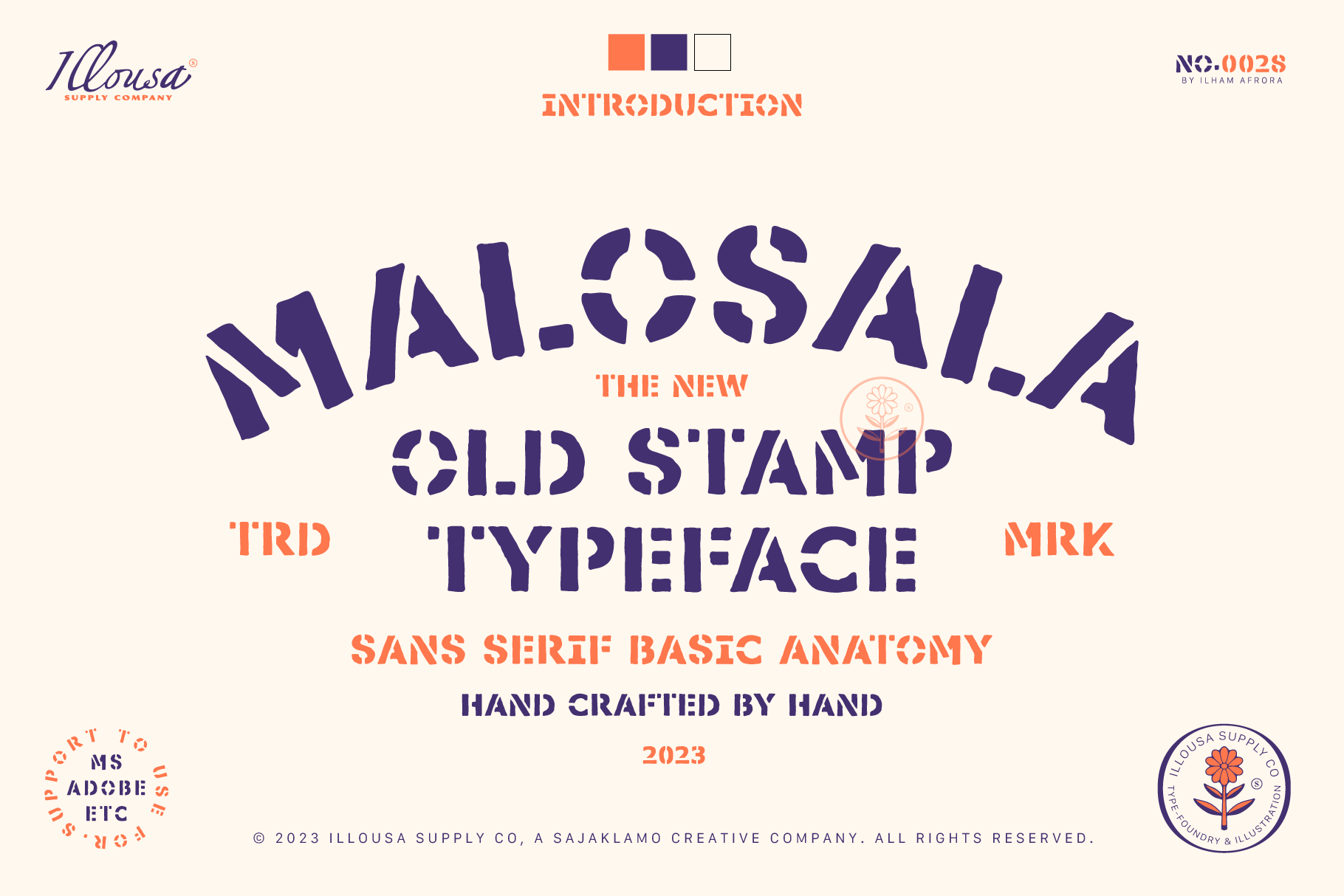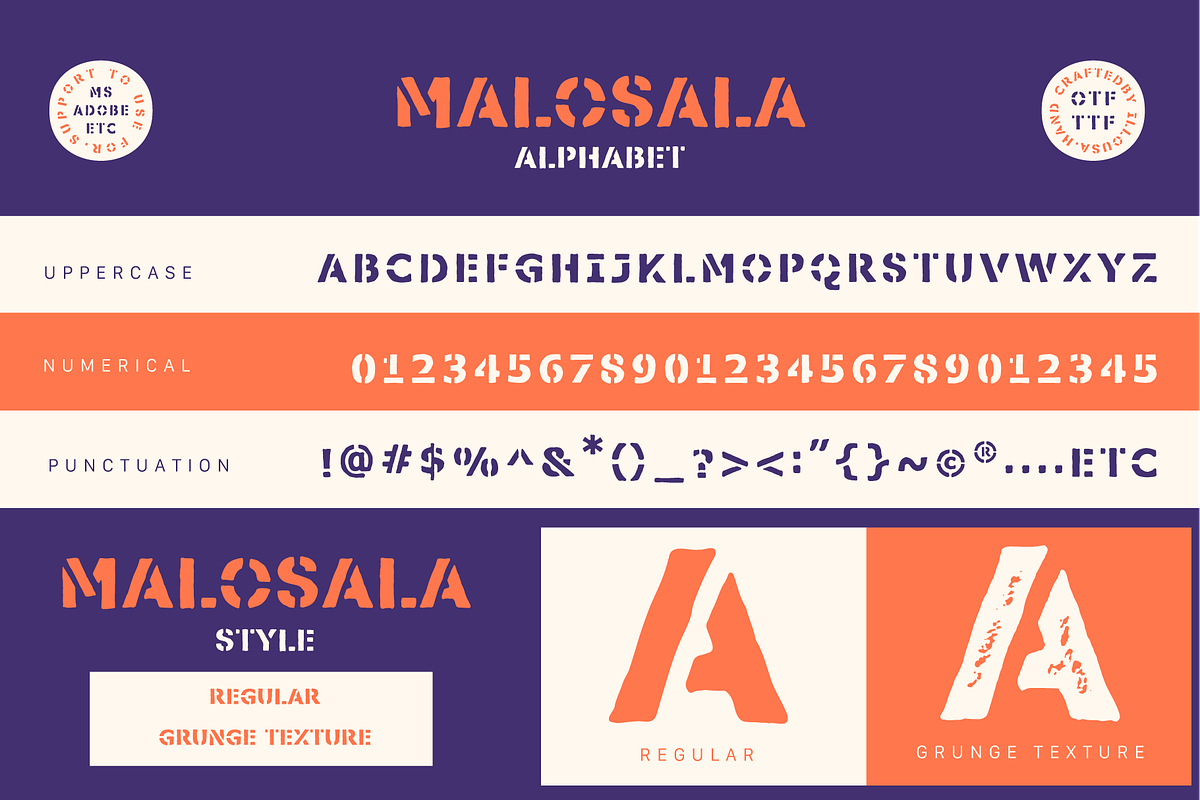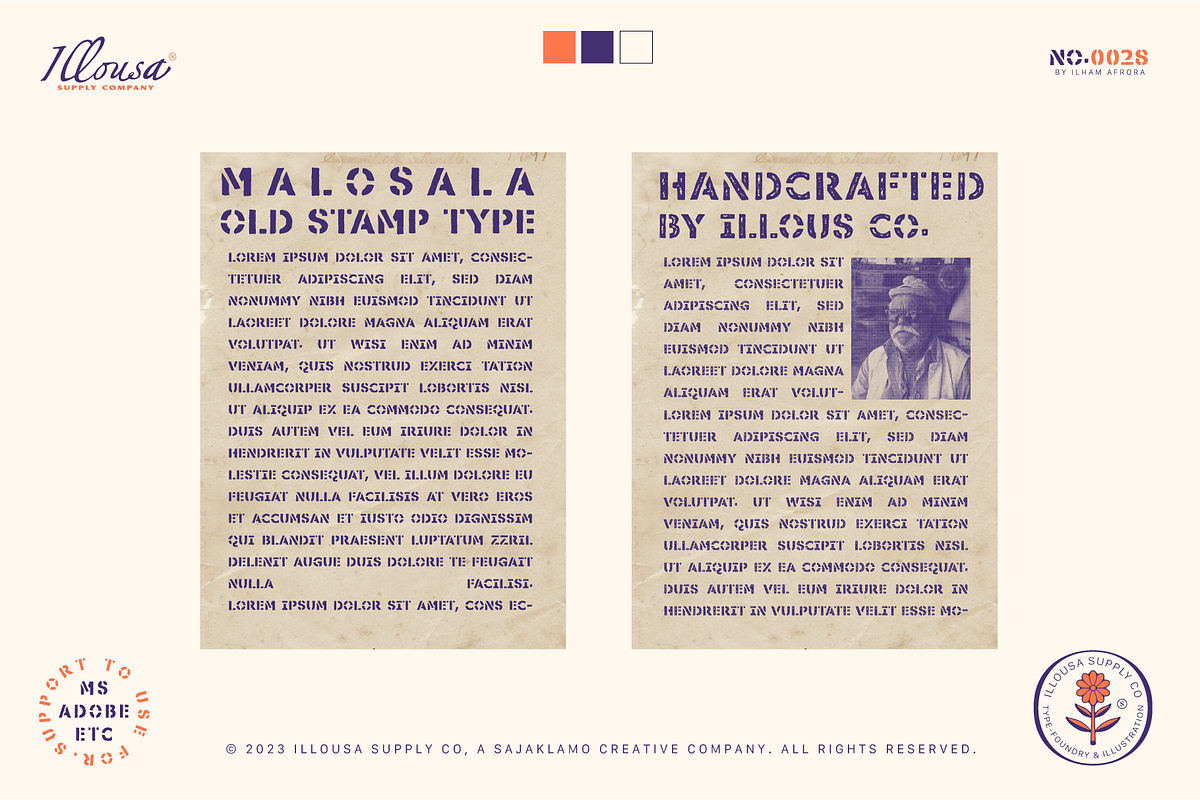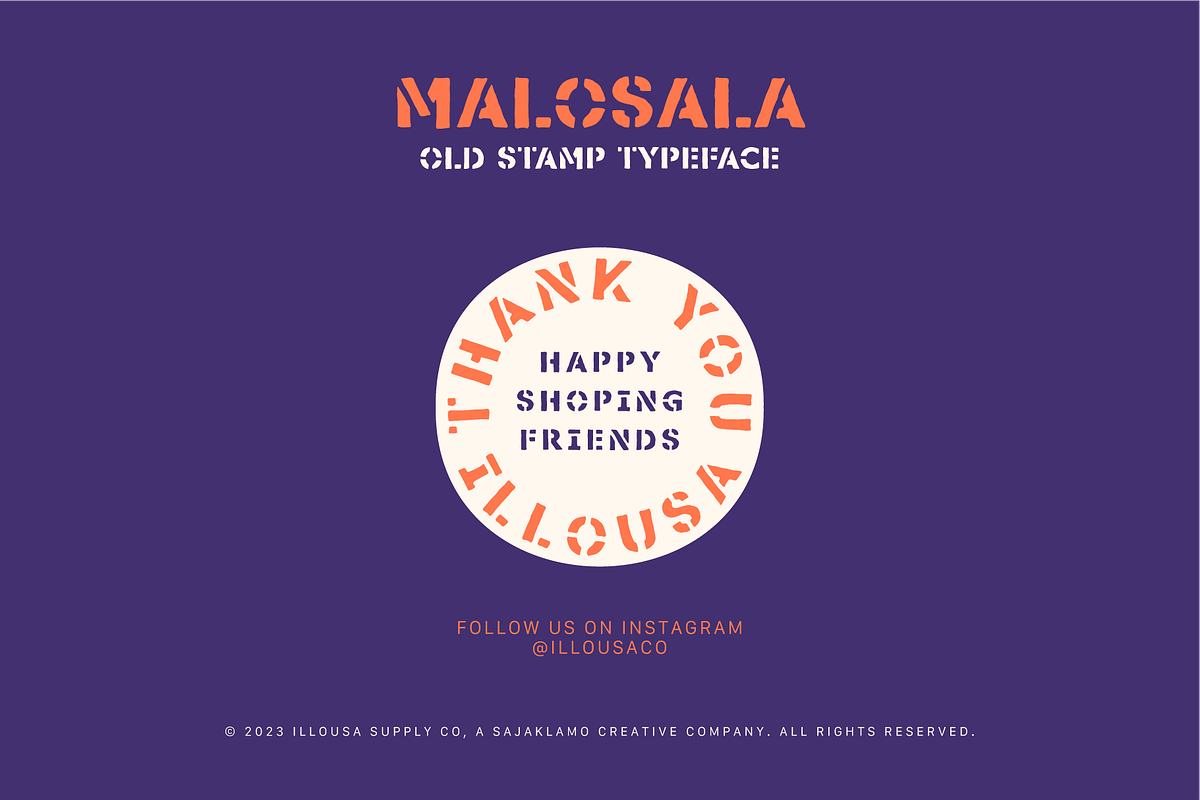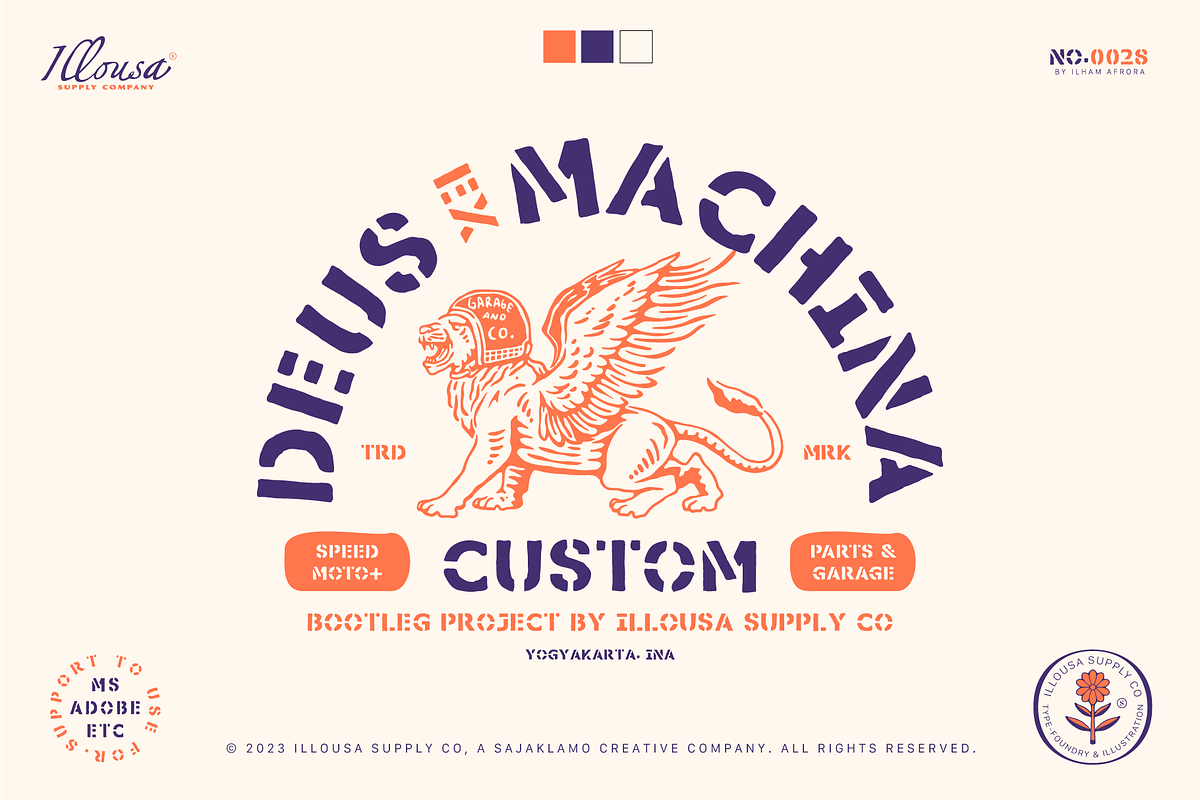
Malosala | Vintage Stamp Font
Malosala: The New Old Stamp Typeface Malosala is a premium display font that captures the raw, industrial energy of vintage cargo stamps and traditional block printing. Developed by Illousa Supply Co., this "New Old Stamp Typeface" is meticulously designed with a Sans Serif basic anatomy, ensuring high legibility while maintaining a weathered, authentic character.
The core strength of Malosala lies in its "hand-crafted by hand" philosophy, providing a tangible, tactile feel to every design. This collection comes in two distinct styles to offer designers maximum flexibility:
Malosala Regular: A clean, solid version of the stencil anatomy. It is perfect for designs that require a strong, structured look while retaining a unique handmade charm.
Malosala Grunge Texture: A high-character version rich in texture. It features "ink-bleed" effects and worn wood-grain details, providing a truly organic, vintage finish without the need for manual distressing.
Perfect For: Branding & Logos: Create impactful "TRD MRK" (Trademark) style identities with a vintage industrial edge.
Packaging Design: Ideal for artisanal product labels that need to convey a sense of history and craftsmanship.
Apparel & Merchandise: A powerful choice for t-shirts and streetwear headlines that demand a rugged aesthetic.
Posters & Signage: Delivers massive visual impact for arched layouts and bold display headlines.